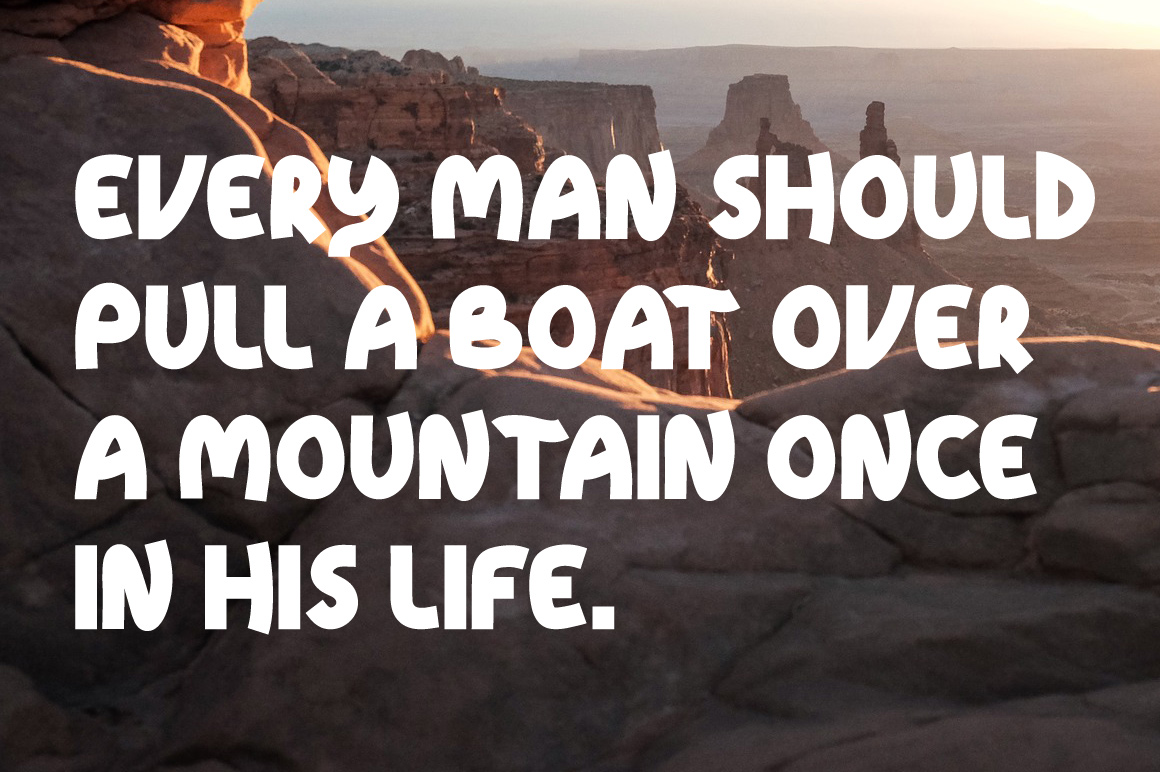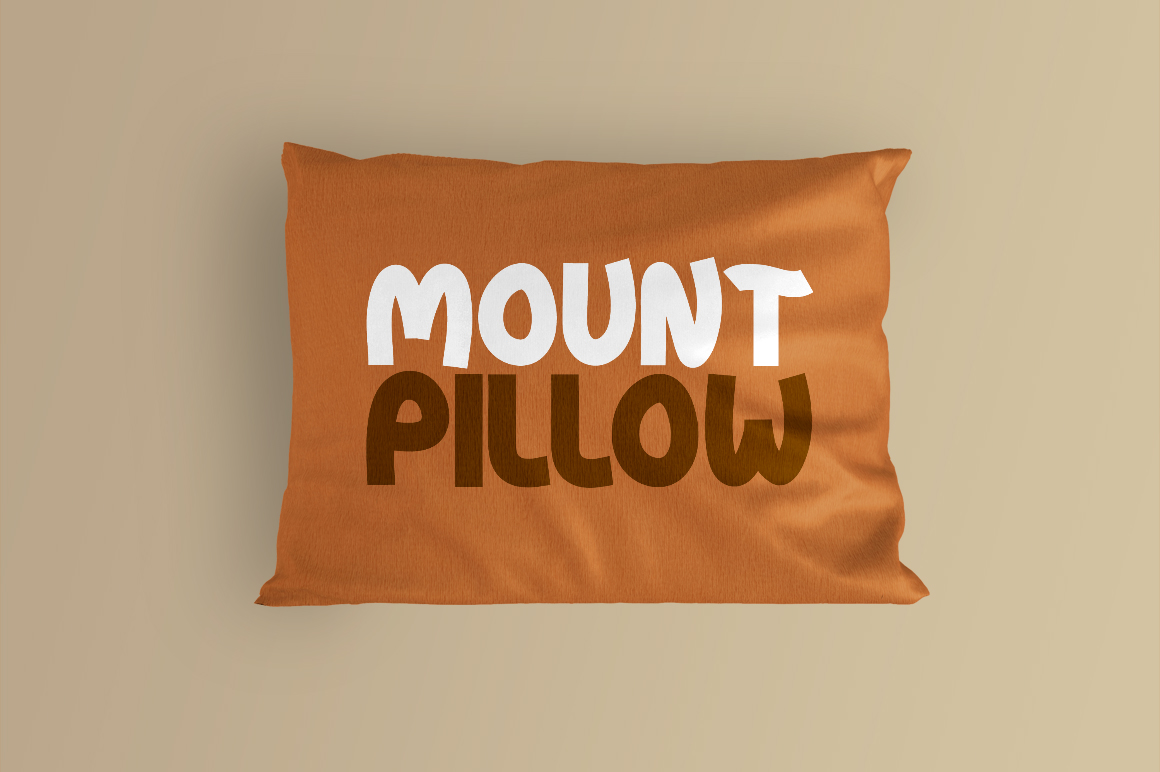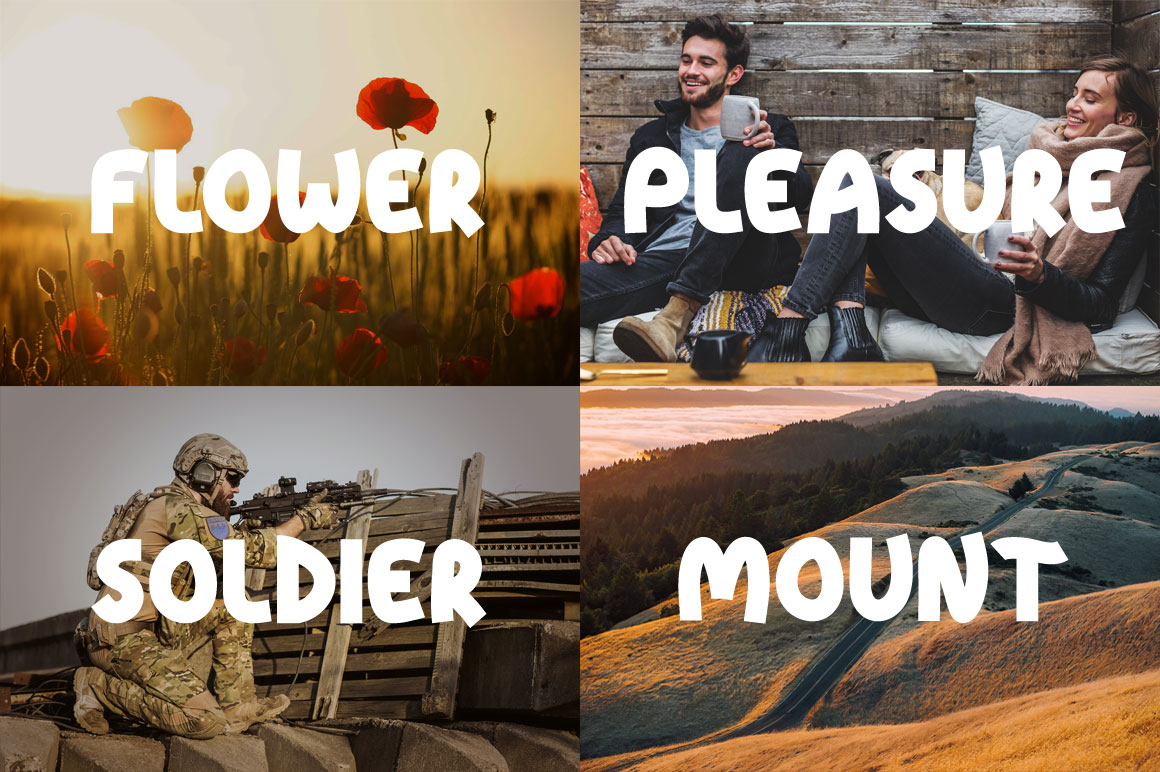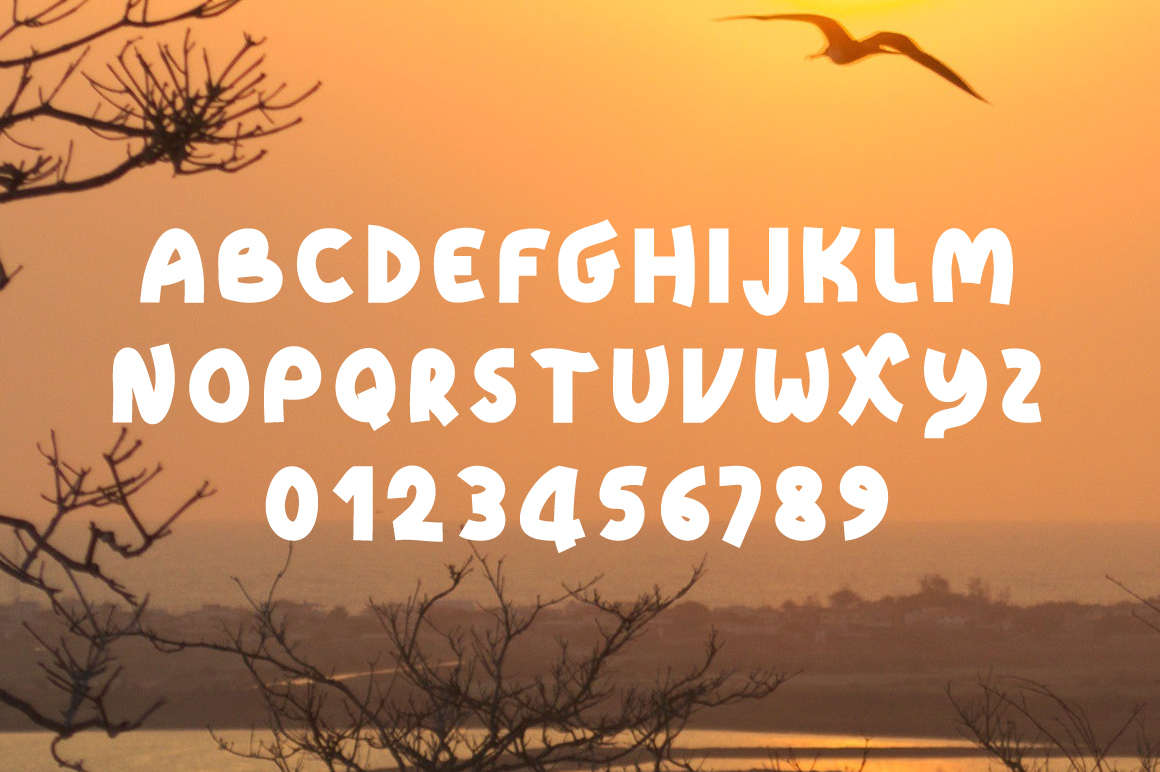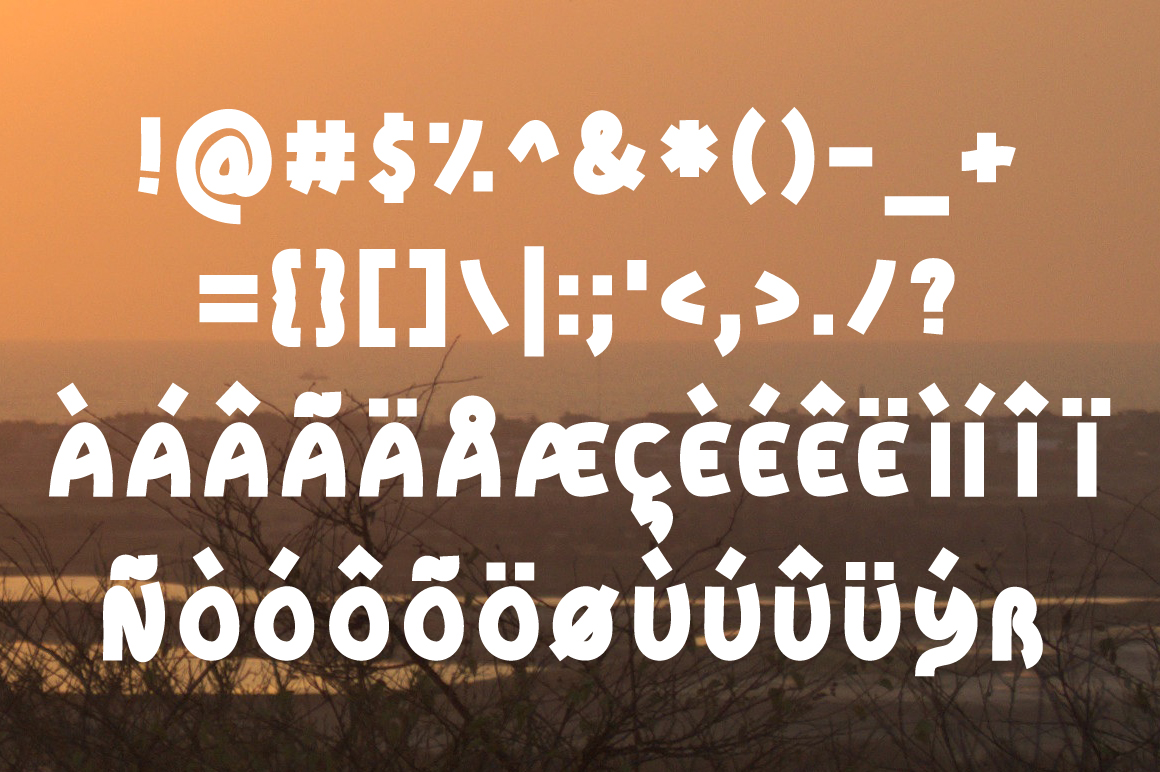
Introducing Getrox Font: A Playful Display Font with a Twist
Getrox font is a unique and captivating display font that is sure to add a touch of playfulness to any design project. With its smooth exterior and varying letterforms, Getrox exudes a fun and carefree vibe that is perfect for designers and crafters looking to add some personality to their work.
The Characteristics of Getrox Font
Getrox font boasts a number of distinctive characteristics that set it apart from other display fonts. Its smooth exterior gives it a sleek and modern look, while the varying letterforms add a touch of whimsy and playfulness. The font’s letters are carefully crafted to create a sense of movement and energy, making it perfect for designs that require a bit of flair.
What Makes Getrox Font So Versatile?
One of the things that makes Getrox font so versatile is its ability to be used in a wide range of design applications. Whether you’re working on a logo, a poster, a website, or a craft project, Getrox font is sure to add a touch of personality and style. Its playful vibe makes it perfect for designs that require a bit of fun and whimsy, while its smooth exterior ensures that it remains legible and easy to read.
The Benefits of Using Getrox Font
- Adds Personality to Your Designs: Getrox font is the perfect way to add a touch of personality to your designs. Its playful vibe and unique letterforms make it a great choice for designers who want to create something truly unique.
- Versatile: Getrox font can be used in a wide range of design applications, from logos and posters to websites and craft projects.
- Easy to Read: Despite its playful vibe, Getrox font is easy to read and remains legible even at small sizes.
- Customizable: Getrox font can be customized to fit your design needs. Whether you want to change the color, size, or style, Getrox font is easy to work with.
How to Use Getrox Font in Your Design Projects
- Pair it with a Simple Font: Getrox font works best when paired with a simple font. This will help to create contrast and make your design stand out.
- Use it for Headings: Getrox font is perfect for headings and titles. Its playful vibe makes it a great choice for designs that require a bit of flair.
- Experiment with Colors: Getrox font looks great in a variety of colors. Experiment with different colors to find the one that works best for your design.
Getrox Font: The Perfect Choice for Designers and Crafters
Getrox font is the perfect choice for designers and crafters who want to add a touch of personality to their work. Its playful vibe and unique letterforms make it a great choice for designs that require a bit of fun and whimsy. Whether you’re working on a logo, a poster, a website, or a craft project, Getrox font is sure to add a touch of style and sophistication.
In conclusion, Getrox font is a unique and captivating display font that is sure to add a touch of playfulness to any design project. With its smooth exterior and varying letterforms, Getrox exudes a fun and carefree vibe that is perfect for designers and crafters looking to add some personality to their work. Whether you’re working on a logo, a poster, a website, or a craft project, Getrox font is the perfect choice.